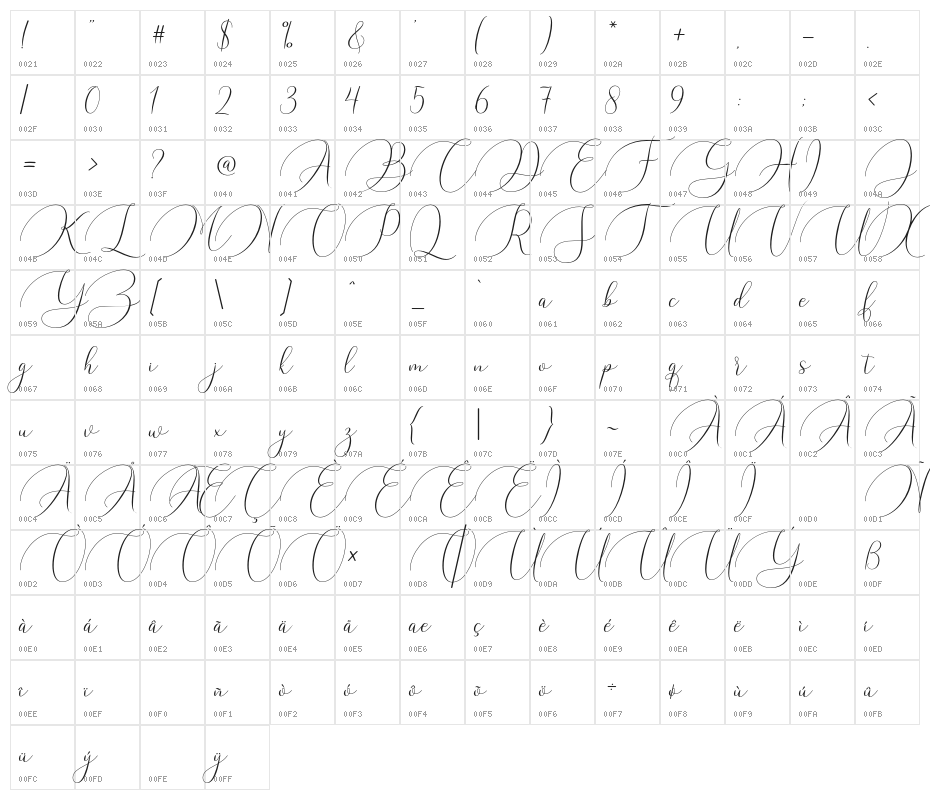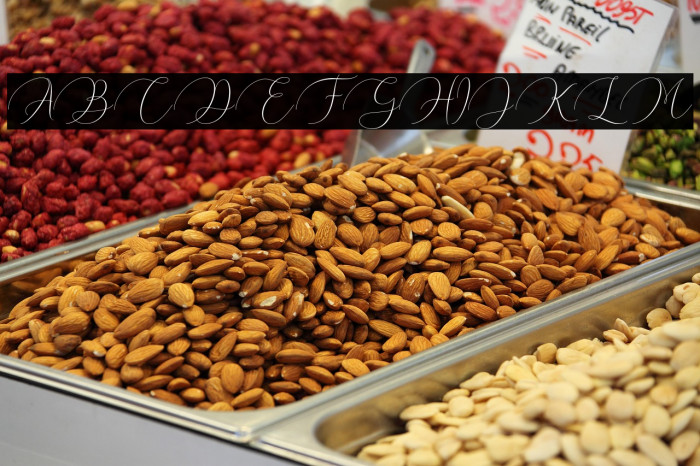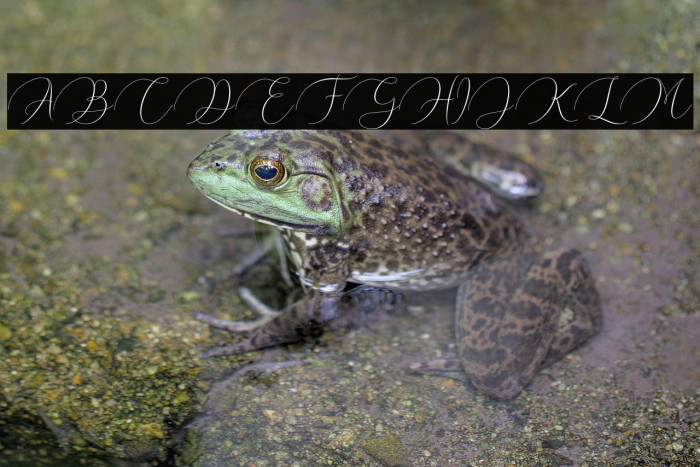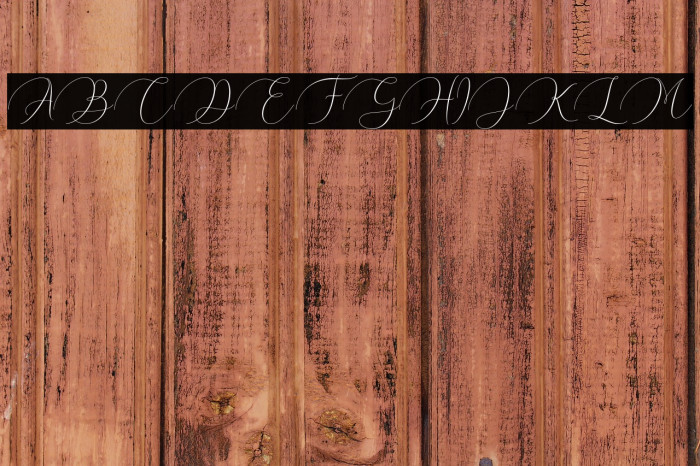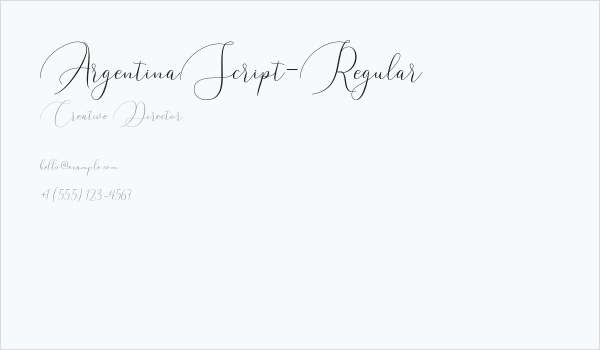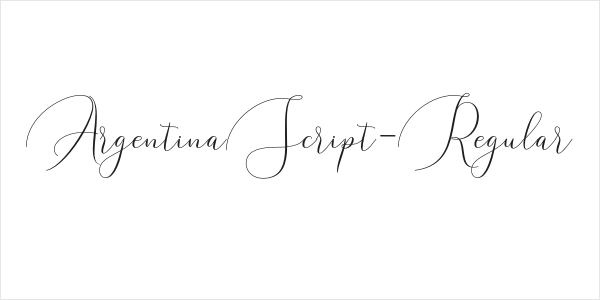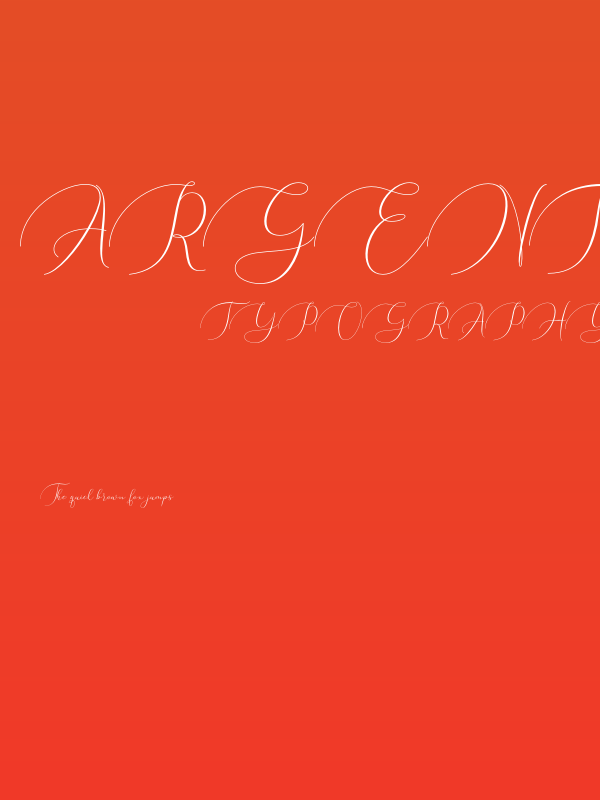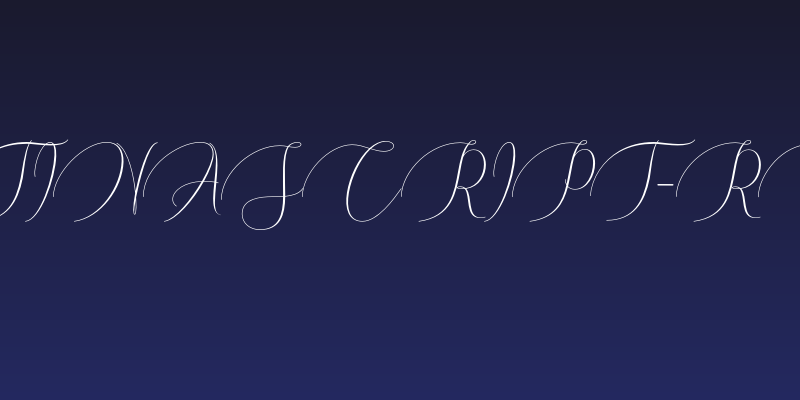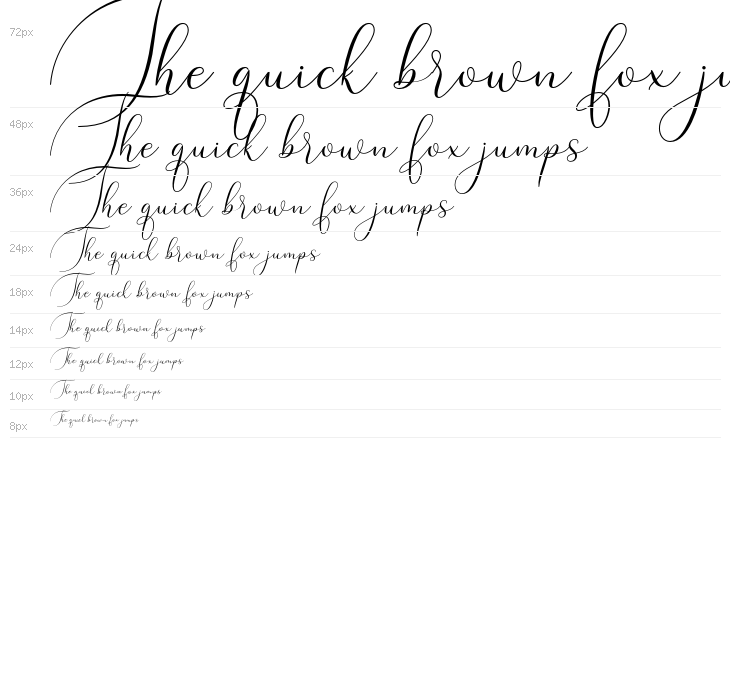
ArgentinaScript-Regular Font
ArgentinaScript-Regular Description
This elegant script font features fluid, cursive strokes that mimic the natural flow of handwriting. The uppercase letters are gracefully elongated with delicate loops and swashes, while the lowercase letters maintain a consistent, flowing baseline. The numerals are stylishly curved, complementing the overall aesthetic. Special characters are thoughtfully designed to integrate seamlessly with the alphabet, enhancing the font's versatility. The font's thin strokes and high contrast give it a refined and sophisticated appearance, making it ideal for formal invitations, branding, and decorative purposes.
| Overall Style | Elegant, Decorative |
| Use Case | Invitations, Branding, Decorative text |
| Proposed Projects | Ideal for wedding invitations, elegant branding, greeting cards, and decorative projects. |